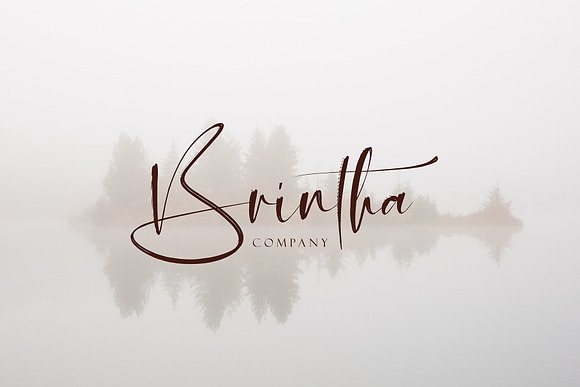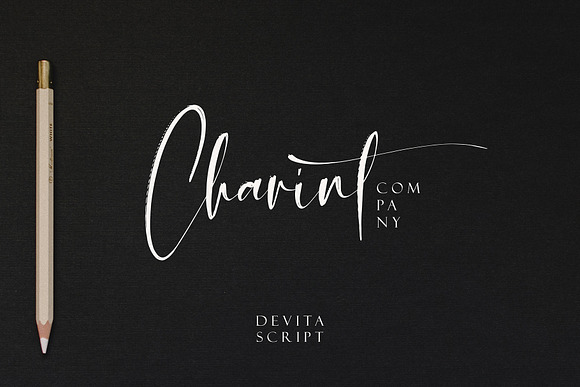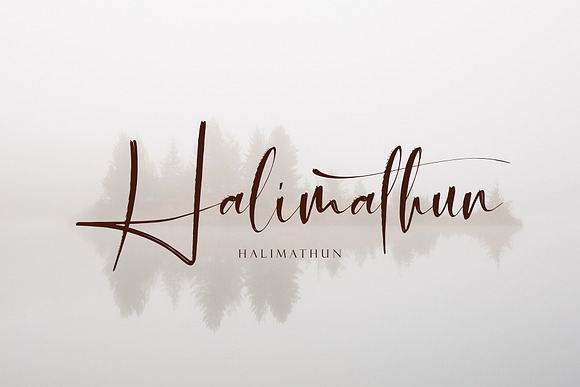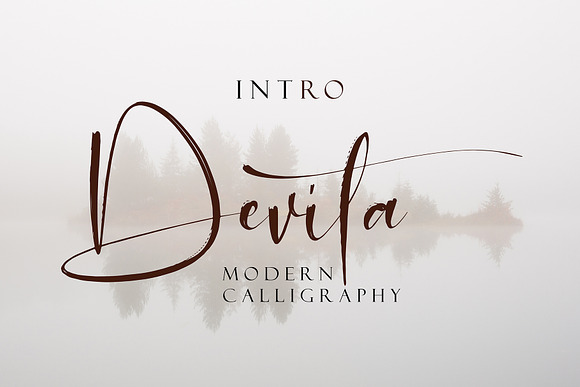
Devita Font
Devita Font is perfect for branding, editorial headlines, website headings, social media graphics, and packaging design. Its clean, modern design adds a sleek and professional touch to any project.
What makes Devita Font exciting is its well-balanced letterforms that combine readability with a contemporary style. The font’s minimalist yet distinctive appearance makes it suitable for both creative and corporate applications.
The Devita Font family includes Regular, Bold, Italic, and Light styles, giving designers the flexibility to create cohesive typographic hierarchies and visually appealing compositions.